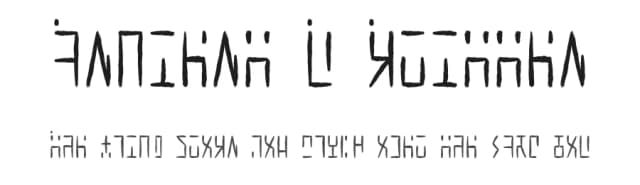
About Ancient G Modern Font
Ancient G Modern is my extension of SGA/SG1 ANCIENT canon glyphset to create a fuller font which distinguishes case, has punctuation and extended chars. The purpose: so that fans can use ANCIENT lettersets more practically, by applying this font to existing docs, typing in it, or even using it as Windows display font for menus etc.
Ancient G Modern Font
by Gen Aris